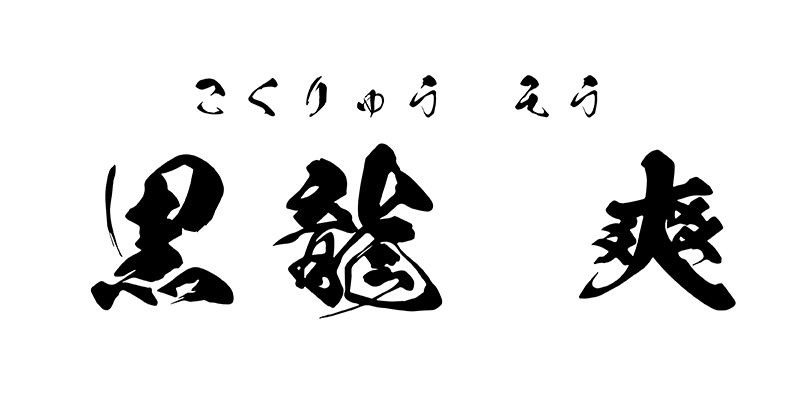
KokuryuSou Font Free Download is a bold and dramatic display typeface inspired by traditional Japanese brush calligraphy. With its powerful strokes and expressive energy, this font is perfect for projects that demand an authentic, artistic, and culturally rich feel. It’s an excellent choice for poster design, martial arts branding, historical themes, video game graphics, or any layout that aims to convey strength and tradition.
The handcrafted look of KokuryuSou adds a layer of depth and storytelling to your design. Its uneven textures and ink-like flow evoke the elegance and intensity of brushwork, bringing a strong visual presence that can’t be ignored. KokuryuSou Font Free Download captures attention with its character and intensity, making it ideal for impactful headlines or thematic logos.
This font pairs well with minimal elements or clean body text to let its artistry shine. Whether you're working on modern takes of traditional visuals or designing bold promotional materials, KokuryuSou offers a striking and memorable typographic voice.